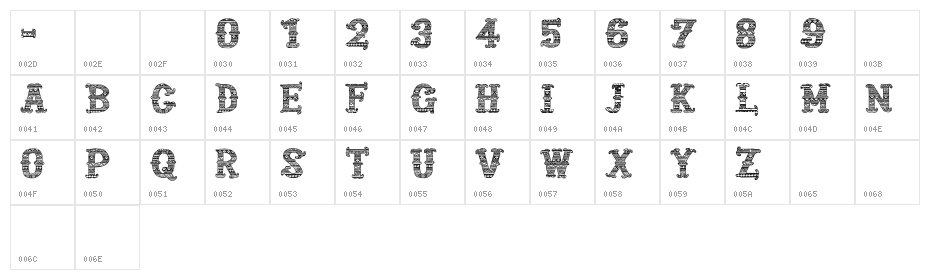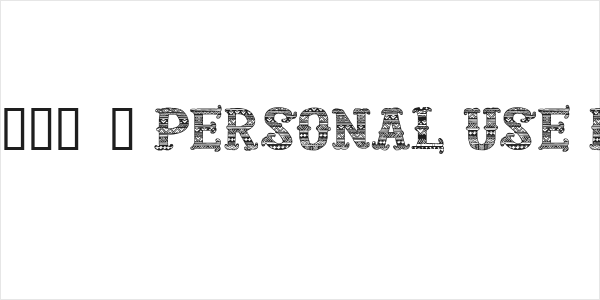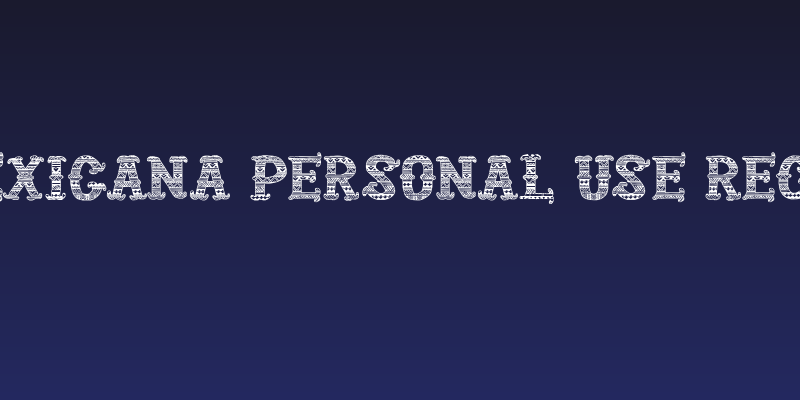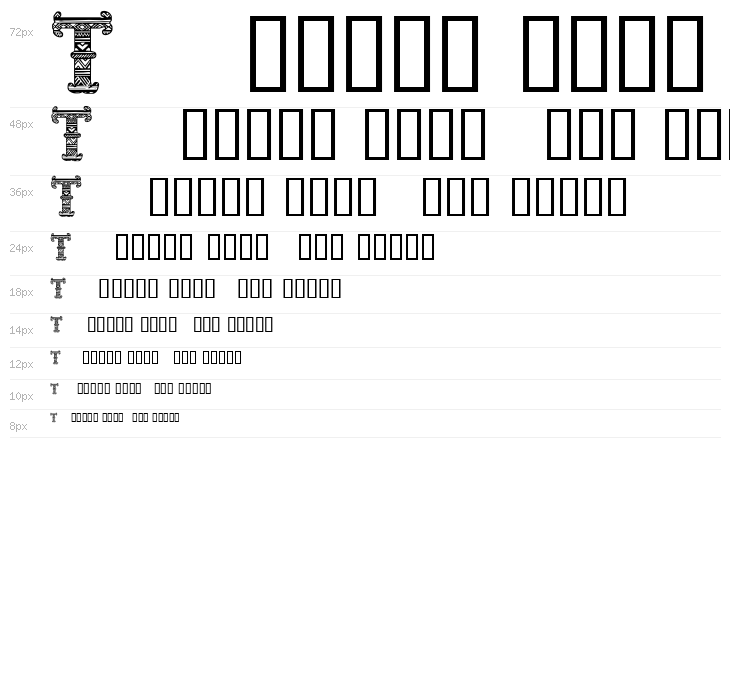
CF Mexicana PERSONAL USE Regular Font
CF Mexicana PERSONAL USE Regular Description
This font features a decorative style with intricate patterns and embellishments within each character. The uppercase letters are bold and ornate, showcasing a variety of geometric and tribal-inspired designs. The numerals follow the same decorative theme, making them stand out with their unique detailing. The font is highly stylized, with each character offering a distinct visual appeal that draws attention. It is perfect for projects that require a touch of cultural or artistic flair, making it ideal for themed events, posters, or branding that seeks to convey a sense of tradition and creativity.
| Proposed Projects | Ideal for cultural event posters, artistic branding, themed invitations, and creative displays. |